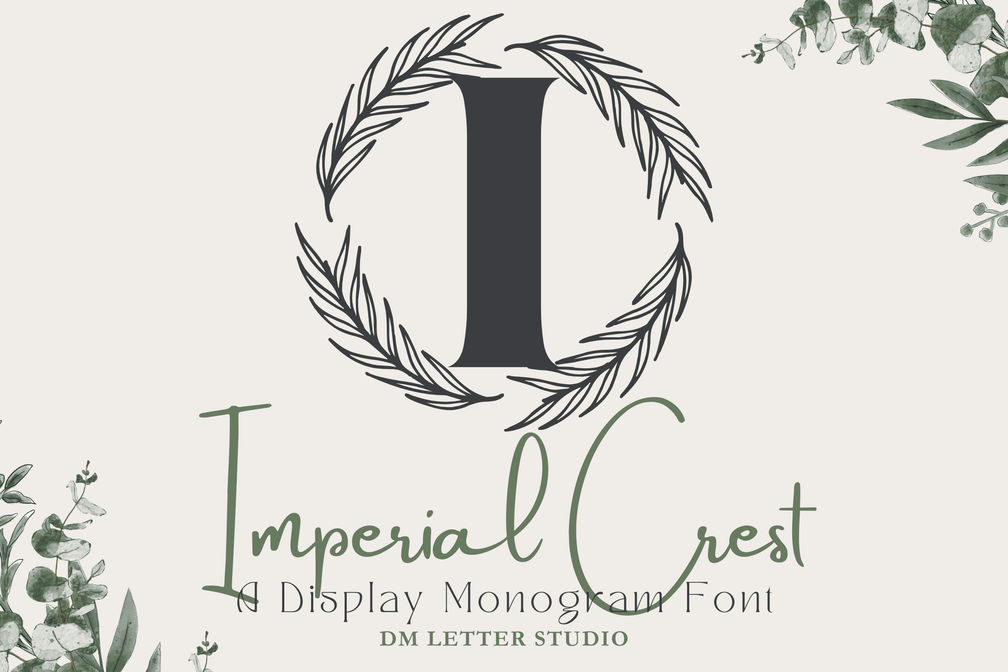
Imperial Crest Monogram
Imperial Crest Monogram – Regal Serif Monogram Font with a Noble Touch
Imperial Crest Monogram is a regal serif font crafted for elegant monogram designs. Inspired by vintage royal insignias and European nobility, this typeface exudes tradition, formality, and prestige. It’s perfect for luxury branding, formal stationery, wedding suites, certificates, or any design that calls for refined authority and graceful detail.
Each capital letter is thoughtfully designed with sharp serifs, subtle flared strokes, and balanced proportions, making the font both regal and versatile. Whether you’re creating a personalized wedding logo, a bespoke product label, or embroidered monogram gifts, Imperial Crest Monogram offers timeless charm and professional flair.
Ideal for high-end use cases like invitation suites, brand seals, or even packaging for boutique products, this font holds its own in both print and digital formats. The clean, crisp lines and classical proportions ensure your monograms will appear striking across business cards, thank-you tags, or wall prints.
With its all-uppercase layout, numerals, punctuation, and multilingual support, this font offers everything you need for professional monogram projects. Its visual strength and grace make it a top choice for brands and designers looking to leave a lasting impression.
• Regal Serif Letterforms: Evokes nobility and old-world prestige with clean, structured characters.
• Perfect for Luxury Designs: Ideal for branding, weddings, formal stationery, and signature packaging.
• All-Caps Monogram Style: Designed for clarity, symmetry, and elegance.